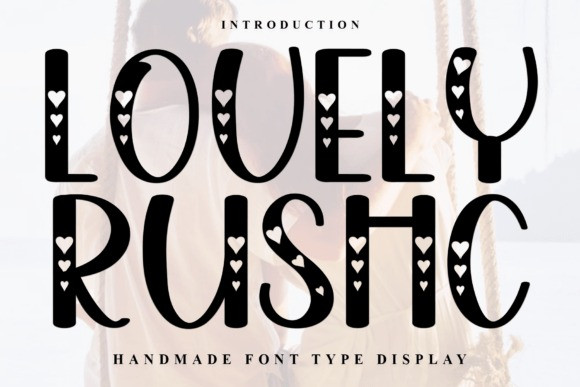
Lovely Rushc Font
Lovely Rushc Font and full of charm — this decorative font features heart-shaped accents seamlessly built into the letterforms, adding a lovely touch to every word. Perfect for Valentine’s Day designs, wedding invitations, love notes, greeting cards, and cute branding, this font turns text into a heartfelt expression. Its playful yet elegant style makes it a standout choice for spreading love through design.